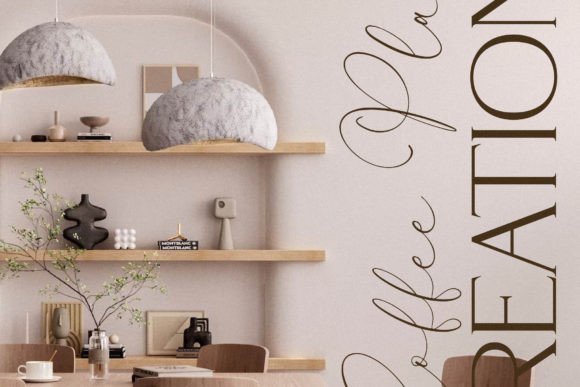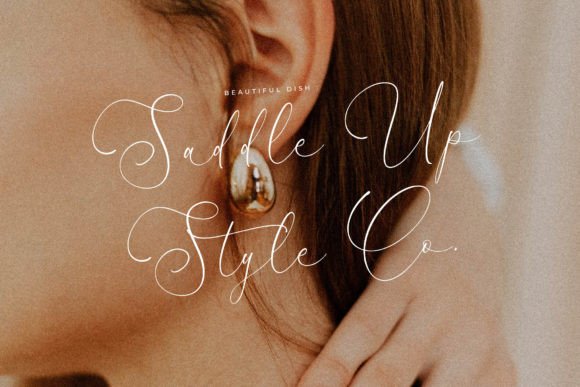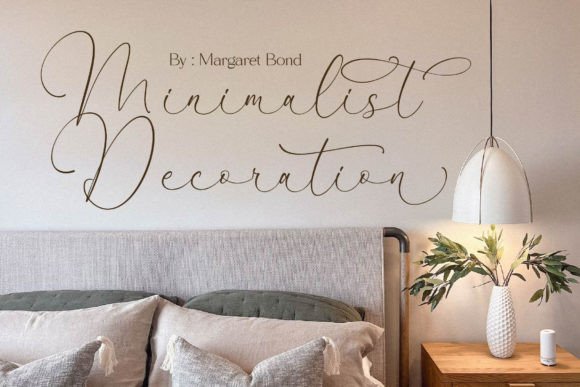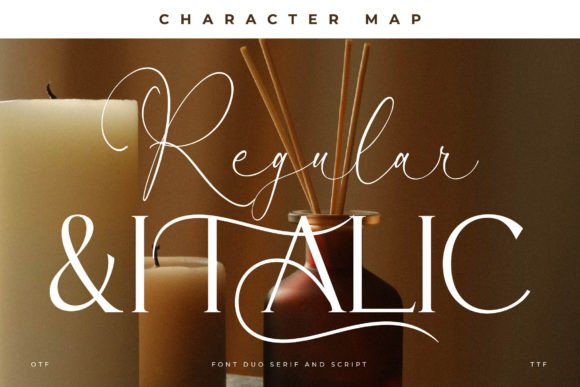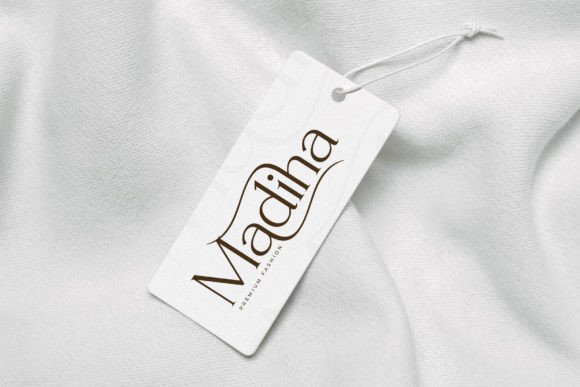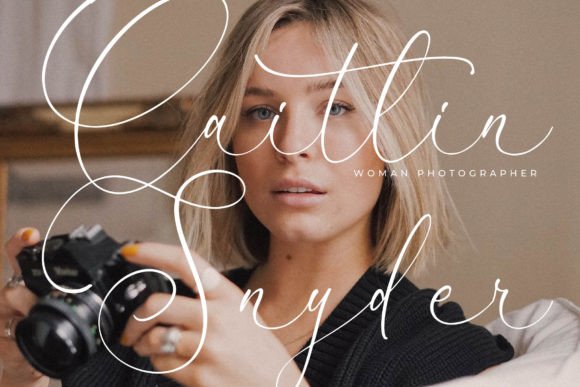
Unlock the Elegance of Your Designs with the Fanttor Howery Font Duo
There’s something magical about stumbling upon the perfect font for a project. It’s like finding a missing piece of a puzzle that suddenly brings everything together. For designers, this moment is a game-changer. And today, we’re excited to introduce you to the Fanttor Howery Font Duo, a stunning serif and script typeface that’s sure to elevate your designs to the next level.
The Fanttor Howery Font Duo is more than just a font – it’s a statement piece that exudes luxury and sophistication. Perfect for logo design, book titles, fashion brands, and more, this typeface is a valuable addition to any designer’s toolkit. With its modern look and unique style, the Fanttor Howery Font Duo is sure to help you create designs that leave a lasting impression.
- Unique Characteristics: Features a unique blend of modern and vintage styles, with intricate details and subtle texture, making it ideal for creative projects and designs that require a touch of elegance and sophistication
Fanttor Howery Font Review
First off, let me say that I’m a fan of the Fanttor Howery Font’s unique aesthetic. ✨ The quirky, hand-drawn feel it brings to designs is perfect for creating eye-catching and memorable visual identities. The font’s bold lines and expressive curves make it ideal for use in headings and titles.
However, there are a few limitations to consider. ⚠️ For one, the font’s irregularities can make it challenging to read at smaller sizes. Additionally, the font’s complexity may not be suitable for designs where simplicity is key. Lastly, the font’s uniqueness can sometimes come across as over-the-top or gimmicky, which may not be suitable for all projects.
Here are some specific pros and cons:
- ✨ Unique and memorable aesthetic
- ✨ Perfect for creating eye-catching headings and titles
- ⚠️ Challenging to read at smaller sizes
- ⚠️ May be too complex for simple designs
- ⚠️ Risk of coming across as over-the-top or gimmicky
Overall, I think the Fanttor Howery Font is a solid choice for designers who want to add a bit of whimsy and personality to their projects. While it may not be suitable for every project, it’s definitely worth considering for the right designs.
Tips for Getting the Most Out of Fanttor Howery Font
Use bold and italic text to add emphasis and create visual interest.
Combine Fanttor Howery Font with other fonts for a unique and eye-catching design.
Experiment with different font sizes and colors to create a cohesive and engaging visual style.
Fanttor Howery Font is ideal for:
Graphic design and branding
Typography-based art and design
Business and corporate materials